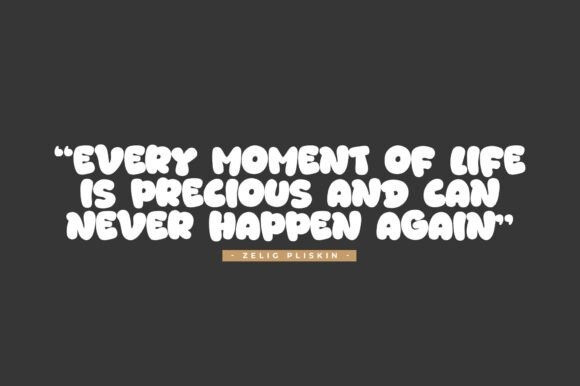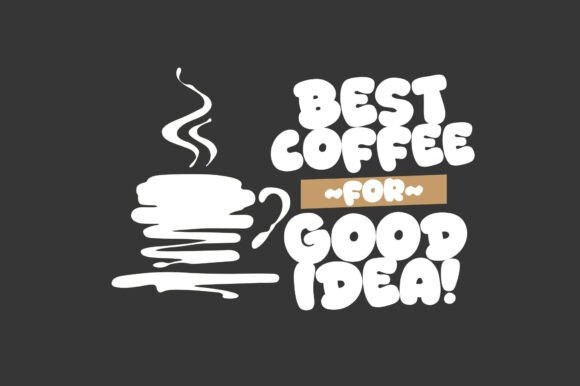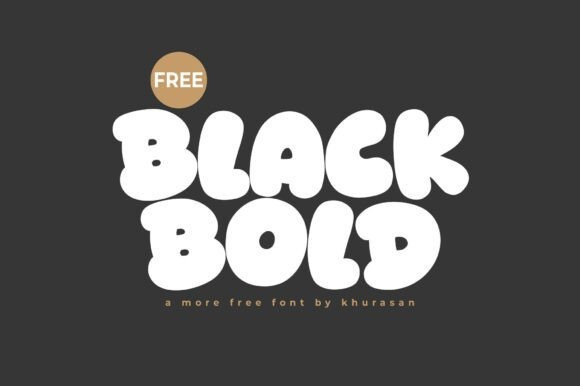
Blackbold Font
Blackbold Font a chunky bubble display font designed for maximum friendliness. This typeface features heavy, pillowy letterforms with soft, rounded corners and a tight, rhythmic spacing that makes every word feel substantial yet approachable. Its extra-bold weight and hand-drawn aesthetic make it an exceptional choice for children’s product packaging, vibrant comic book titles, energetic social media graphics, and bold apparel branding.
Whether you are designing a catchy logo for a youth brand or a standout header for a fun lifestyle blog, Black Bold delivers a sense of joyful impact and soft, tactile charm to your visual storytelling.